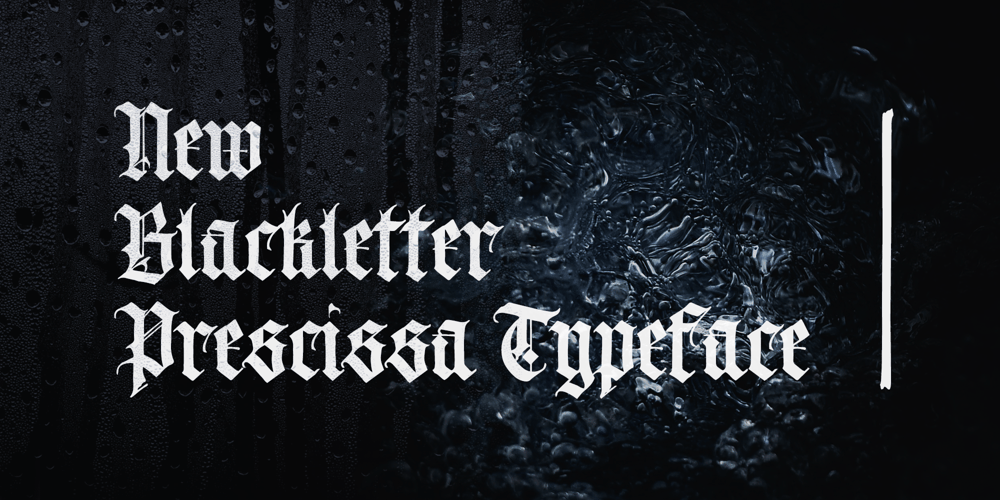
STCO Prescissa
STCO Prescissa font
STCO Prescissa Font Family was designed by Faishal Mahdy and published by Shaltype Co. STCO Prescissa contains 1 styles and family package options. Prescissa is inspired by Textualis, also known as textura or Gothic bookhand, which was the most calligraphic form of blackletter, and today is the form most associated with “Gothic”.Written manually by hands, and reform into clean Typeface. Natural stroke from original handwriting. It can be used for just Title or even writing.In this font, you will get :> Over 449 Glyphs> 12 OpenType features> Multilingual languages.Get Prescissa now! It will best use for any design requirement, many fonts will coming with a unique concept.Thank you! Best Regards, FM-STCO.